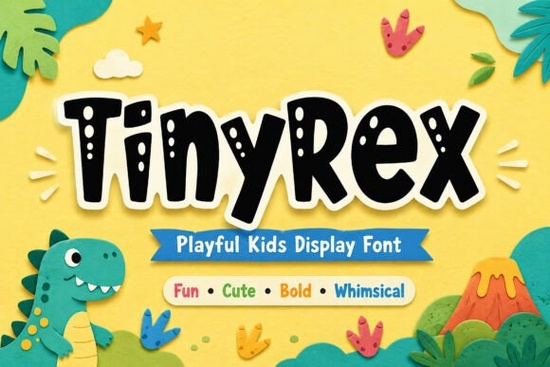
If you're designing for kids whether it's birthday invites, storybook covers, toy packaging, or playful merch you’ll want a font that feels joyful, approachable, and full of character. That’s exactly what the Tiny Rex Font delivers. It’s not just another cartoon-style typeface; it’s thoughtfully designed with bold, irregular shapes, slightly uneven proportions, and charming little cutouts (like tiny dino footprints and rounded “bites” out of letters) that give it real personality. It works especially well when you need something friendly but distinctive something that stands out on a shelf, in a YouTube thumbnail, or on a handmade greeting card.
Who actually uses Tiny Rex and why?
Small business owners making custom kids’ apparel or stickers often reach for Tiny Rex because it scales beautifully from small labels to large prints without losing its charm. Teachers and homeschoolers use it for classroom posters and reading charts it’s legible at a glance but still fun enough to hold kids’ attention. Print-on-demand sellers tell us it converts well on baby onesies and toddler room decor: parents respond to fonts that feel warm and imaginative, not overly polished or sterile.
Designers working on children’s book interiors sometimes pair Tiny Rex with a clean sans-serif for body text it makes chapter titles or character names pop without overwhelming the page. And if you’re building a brand around toys, candy, or educational kits, this font helps communicate playfulness and trustworthiness two things families look for in kid-focused products.
How does it compare to other playful display fonts?
Unlike some bouncy fonts that rely heavily on exaggerated curves or heavy outlines, Tiny Rex keeps its energy grounded in shape and rhythm. Its lowercase “a” and “g” have open, friendly forms, and uppercase letters like “B” and “R” carry subtle dino-inspired quirks think chunky legs and rounded spines not gimmicks. That balance makes it more versatile than flashier alternatives.
For example, Rushk leans more into hand-drawn energy and is great for energetic logos, while Dancing Christmas has seasonal flair and tighter spacing ideal for holiday cards but less suited for year-round branding. Booom offers stronger impact for headlines and posters, but Tiny Rex holds up better in longer phrases or bilingual layouts thanks to its generous letter spacing and clear distinctions between similar characters (like “I”, “l”, and “1”).
It also shares some warmth with Black Artist, though that one carries more cultural texture and calligraphic flow better for community-driven or art-forward projects. Tiny Rex stays focused on universal childhood joy: dinosaurs, building blocks, crayons, and make-believe.
The uppercase-only version is especially handy for vinyl cutting fewer overlapping paths means cleaner cuts on machines like the Cricut Maker or Silhouette Cameo. And because the letters have sturdy stems and rounded terminals, they hold up well when printed small on sticker sheets or embroidered onto fabric (with appropriate digitizing).
Where do people tend to overuse or underuse it?
A common mistake is cramming too much text into Tiny Rex. It shines best at sizes 24pt and up for print, or 36px+ for web. Use it for short, high-impact words: “ROAR!”, “DINO PARTY”, “LEGO LAND”, or “SNACK TIME”. Pair it with a neutral sans-serif (like Montserrat or Open Sans) for supporting text.
On the flip side, many designers overlook how well it works for non-obvious uses like retro-style science fair banners, museum gift shop signage, or even low-key branding for pediatric clinics or therapy practices that want to feel welcoming, not clinical.
If you're curious about how Tiny Rex fits alongside other popular options, you can explore the Tiny Rex collection directly on Creative Fabrica, where you’ll find matching graphics and SVG bundles made to coordinate.
Quick checklist before you download
- ✅ You’re designing for kids ages 2–10 or for adults who buy for them
- ✅ Your project needs strong visual identity but doesn’t require formal or technical precision
- ✅ You’ll be using it mostly for headlines, logos, packaging, or short phrases not long paragraphs
- ✅ You want something that feels handmade but still prints cleanly at multiple sizes
- ✅ You’ve tested it alongside your secondary font to ensure contrast and readability
Try pairing it with soft pastel colors or textured backgrounds it’s forgiving and adapts well. And if you’re building a brand system, sketch out three core uses first (e.g., logo + product tagline + social banner) to keep consistency front of mind.